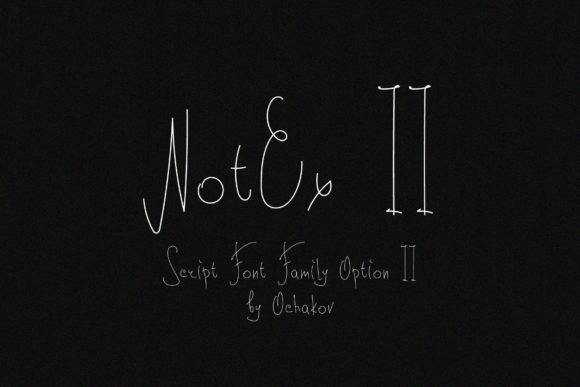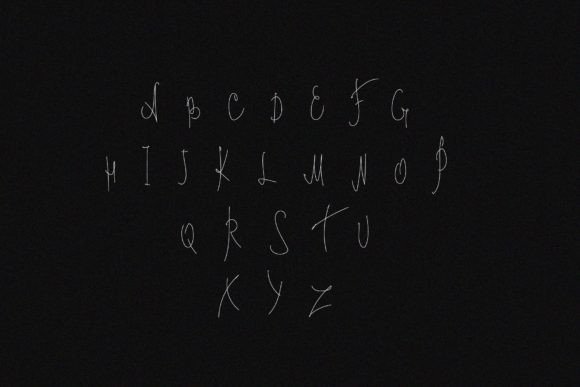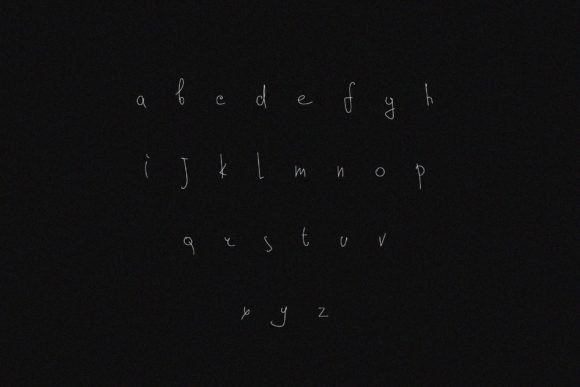
Notex Ii Font
NotEx II stands as a testament to the artistry and emotion embedded in handwritten fonts. Unveiling a soulful essence and a touch of authenticity, this font transforms the ordinary into the extraordinary. Crafted with care, each letter carries a distinctive and beautiful touch that breathes life into your designs, adding a layer of depth and personality.
The allure of NotEx II lies in its ability to evoke a sense of humanity and warmth, replicating the nuances of genuine handwriting. The strokes, curves, and flourishes of each letter are meticulously designed to create an ensemble that is both visually captivating and emotionally resonant. This font transcends the digital realm, imparting a tangible and handcrafted feel to your projects.
What sets NotEx II apart is the careful curation of every character, ensuring that no two letters are alike. This deliberate irregularity adds a unique charm to your text, mimicking the subtle variations found in authentic handwritten notes. The result is a harmonious blend of art and functionality, where each word becomes a canvas for creative expression.
As you integrate NotEx II into your designs, you’ll notice its transformative power. Whether used for headlines, body text, or creative accents, this font possesses a versatile nature that adapts seamlessly to various design contexts. It captures attention without overwhelming, making it an ideal choice for projects that require a touch of elegance and individuality.
Beyond its aesthetic appeal, NotEx II embodies a sense of nostalgia, reminiscent of personal letters and cherished notes. Its felt-tip-inspired strokes convey a tactile quality that invites users to engage with your content on a deeper level. This font becomes more than just a visual element; it becomes a storyteller, infusing your designs with an emotive quality.
In the realm of digital design, where precision often dominates, NotEx II introduces an organic and human element. It defies the sterile uniformity of some fonts, providing a refreshing counterbalance that resonates with those seeking a more personal and intimate connection through design.
In conclusion, NotEx II is more than a font; it is a creative companion that elevates your designs to new heights. Its soulful and handwritten aesthetic brings a refreshing authenticity to digital spaces, fostering a connection between the creator and the audience. Embrace the unique and beautiful touch of NotEx II, and watch as your design endeavors come alive with a vibrant and heartfelt energy.